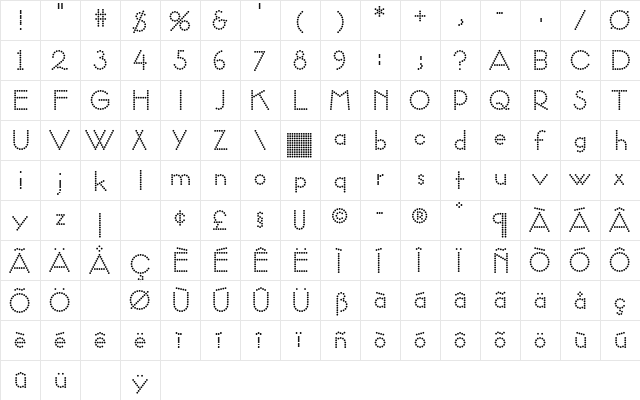
OLMarksman Regular Font Preview
OLMarksman Regular
Design Context for OLMarksman Typeface
OLMarksman takes a measured approach to typography — its balanced proportions and neutral character make it a reliable workhorse for both digital and print work.